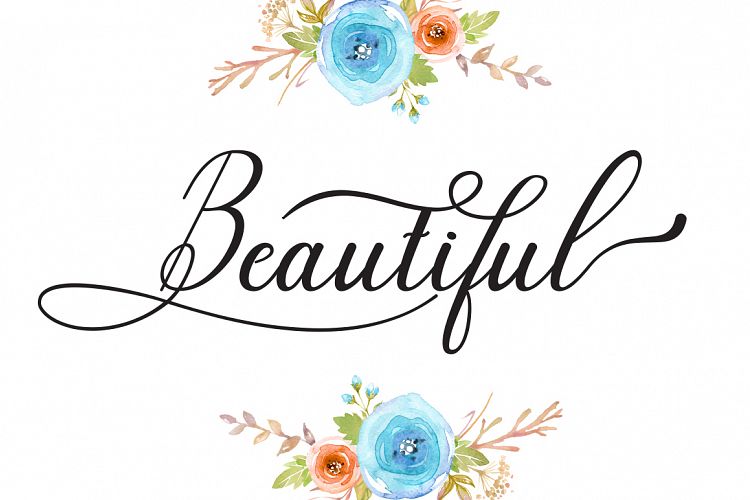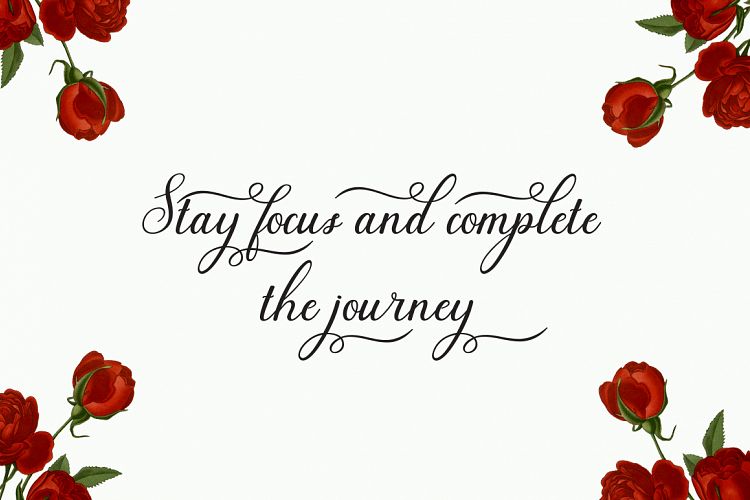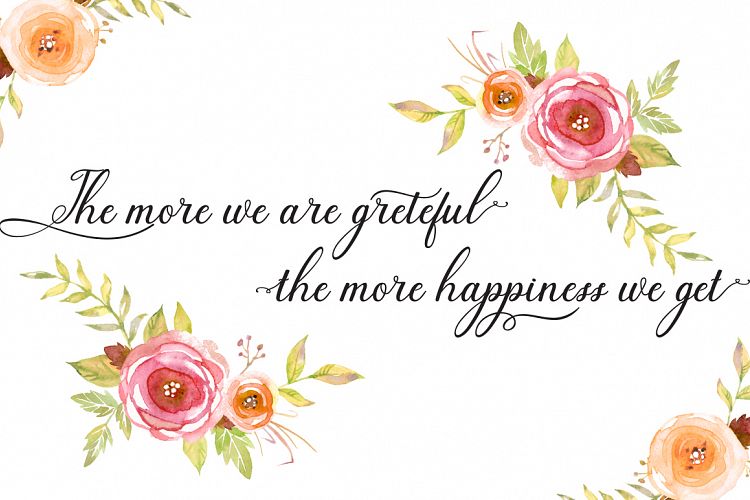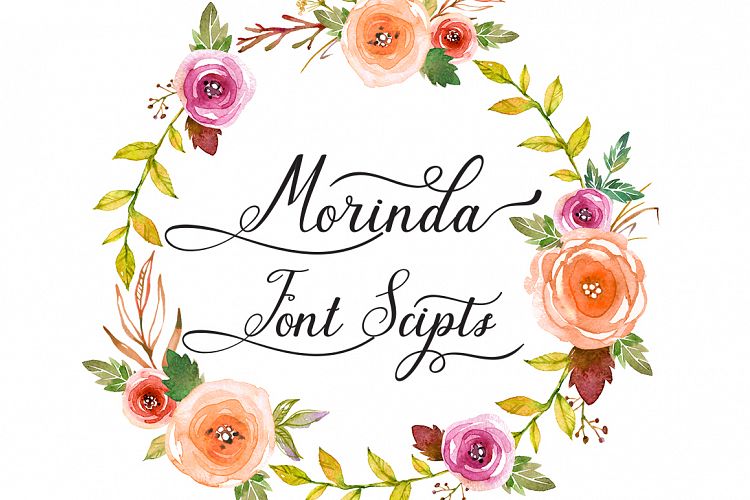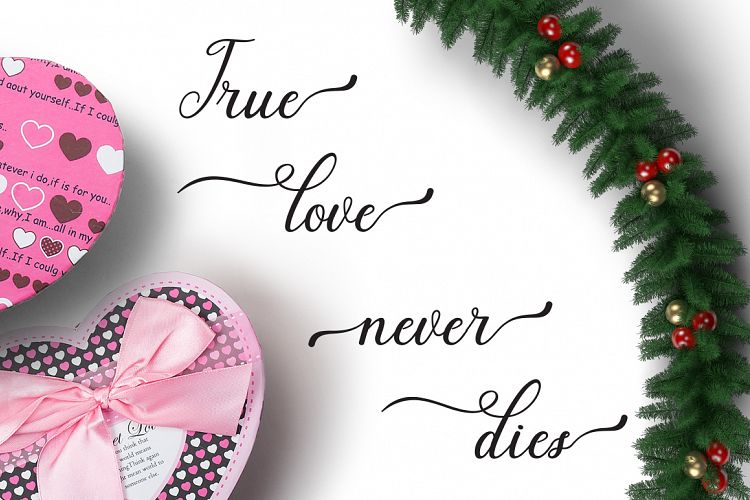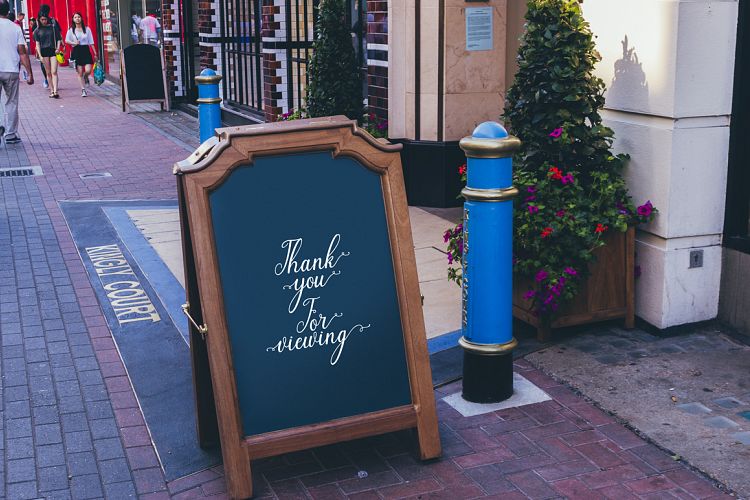
Introduction to Morinda Font
Have you ever found yourself stuck in front of a blank canvas, wondering how to bring your creative vision to life? This is where the perfect font can make all the difference. For designers and creatives, finding the right typography can be a game-changer, elevating your project from good to great. And that’s exactly what the Morinda Font does – it adds a touch of elegance and sophistication to any design, whether it’s a formal presentation or an informal social media post.
As a high-quality design resource, the Morinda Font is a must-have for any creative project. With its smooth, flowing lines and varying baseline, this stylish script font is perfect for designers who want to add a personal touch to their work. And the best part? It’s available for free download, making it an accessible and valuable resource for designers of all levels.
Whether you’re working on a digital project or a print design, the Morinda Font is a versatile and reliable choice. Its transparent background makes it easy to layer and customize, giving you complete control over your design. So why settle for a generic font when you can elevate your project with the Morinda Font?
Morinda Font
- High-quality design resource with a unique, creative font style.
- Perfect for creative projects that demand a distinctive and elegant font style.
Honest Review: Morinda Font
I recently stumbled upon the Morinda Font, and I must say, it’s been a game-changer for my creative projects. This design resource has been a lifesaver when it comes to adding a touch of elegance and sophistication to my work.
- ✨ High-quality typography: The Morinda Font boasts crisp and clear typography that’s perfect for any design project.
- ✨ Versatile: This font is incredibly versatile and can be used for a wide range of creative projects, from logos to posters and everything in between.
- ⚠️ Limited language support: The Morinda Font only supports a limited number of languages, which can be a drawback for designers working on international projects.
- ⚠️ Not ideal for small text: The font’s large size and bold style make it less suitable for small text or body copy.
Overall, I’m impressed with the Morinda Font’s quality and versatility. While it may have some limitations, it’s a valuable addition to any designer’s toolkit, especially for those working on creative projects that require high-quality typography.
Tips for Getting the Most Out of Morinda Font
Use the Morinda Font in conjunction with a high-quality design resource, such as a transparent background image, to create a professional-looking design. Experiment with different font sizes and styles to add visual interest to your project.
Common Use Cases for Morinda Font
The Morinda Font is a versatile design resource that can be used in a variety of creative projects, including branding, marketing materials, and web design. Its high-quality design and transparent background make it an ideal choice for designers looking to add a touch of elegance to their projects.